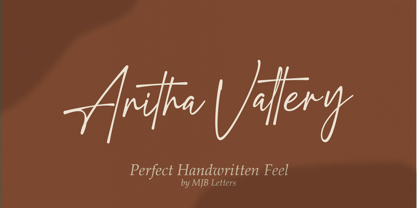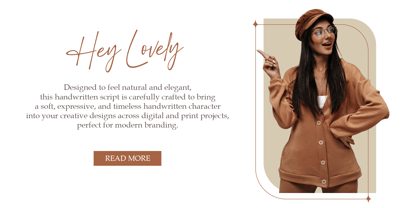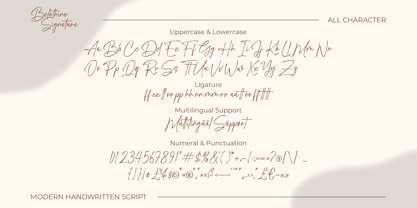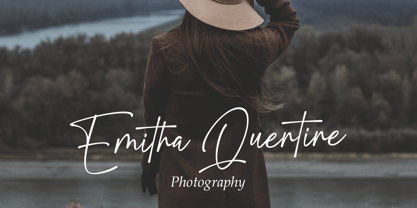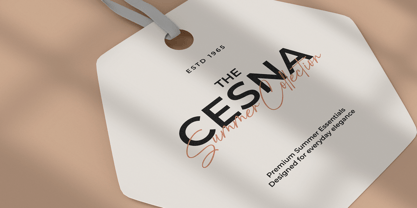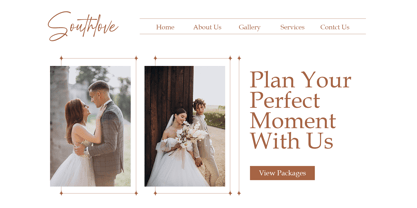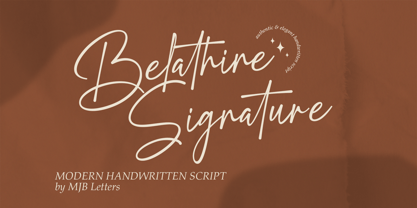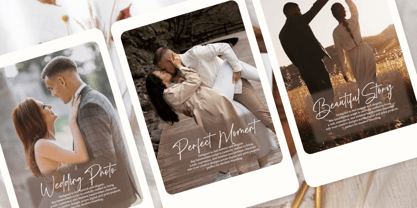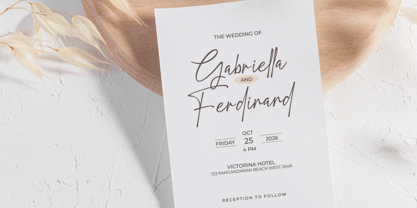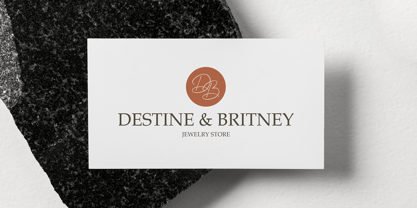
Belathine Signature
by MJB Letters
The Belathine Signature Font Family was designed by Muhammad Mujibulloh and published by MJB Letters. Belathine Signature contains 1 styles. More about this family
Belathine Signature is a modern handwritten script font designed to bring elegance and authenticity to contemporary design projects.
With smooth curves, refined strokes, and natural signature flow, this typeface is ideal for branding, logo design, wedding invitations, packaging, and visual identity work.
The font includes stylistic alternates, ligatures, and multilingual support, allowing for flexible and expressive typography across a wide range of applications.
Belathine Signature delivers a balance between luxury aesthetics and natural handwriting, making it suitable for both personal and commercial projects.